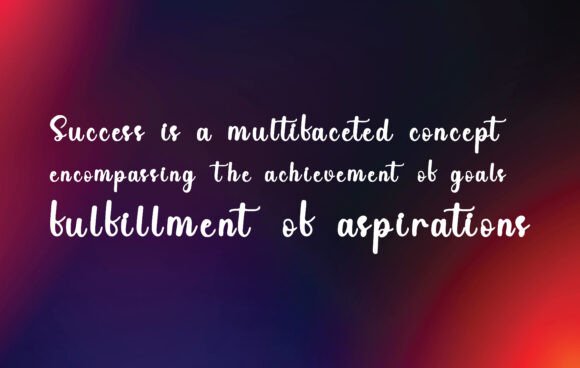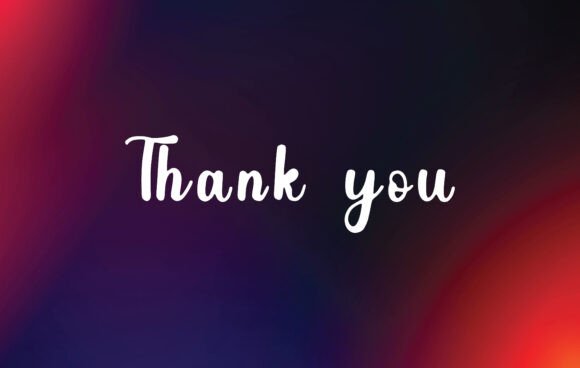
Introducing Ardesia Font: Elevate Your Creative Projects with Elegance
Are you on the lookout for a font that can add a touch of sophistication and charm to your creative projects? Look no further than Ardesia Font, a lovely and beautiful handwritten font designed to take your ideas to new heights. With its unique and elegant style, Ardesia is the perfect choice for designers, crafters, and anyone looking to create eye-catching logos, branding, and quotes that leave a lasting impression.
The Beauty of Ardesia Font
Ardesia Font boasts a distinctive handwritten style that exudes warmth and personality. Its beautiful, flowing lines and curves make it an ideal choice for creating visually appealing designs that capture the essence of your brand or message. Whether you’re working on a logo, brochure, or social media graphics, Ardesia Font is sure to add a touch of elegance and sophistication.
Why Choose Ardesia Font?
So, what makes Ardesia Font stand out from the rest? Here are just a few reasons why designers and crafters love working with this beautiful font:
- Unique and Versatile: Ardesia Font is perfect for a wide range of creative projects, from logos and branding to quotes and social media graphics.
- Elegant and Sophisticated: With its beautiful, flowing lines and curves, Ardesia Font adds a touch of elegance and sophistication to any design.
- Easy to Read: Despite its elegant style, Ardesia Font is easy to read and understand, making it perfect for body text and captions.
- Highly Customizable: Ardesia Font can be easily customized to fit your brand’s unique style and personality.
Using Ardesia Font for Logos and Branding
Ardesia Font is an excellent choice for creating logos and branding materials that make a lasting impression. Its unique and elegant style makes it perfect for:
- Logos: Create a stunning logo that showcases your brand’s personality and style.
- Business Cards: Add a touch of sophistication to your business cards and make a great first impression.
- Brochures and Flyers: Use Ardesia Font to create visually appealing brochures and flyers that capture the essence of your brand.
Tips for Using Ardesia Font
To get the most out of Ardesia Font, here are a few tips to keep in mind:
- Experiment with Colors: Try pairing Ardesia Font with different colors to create a unique and eye-catching design.
- Play with Sizes: Experiment with different font sizes to create visual interest and hierarchy.
- Add Texture and Patterns: Add texture and patterns to your design to give it an extra layer of depth and interest.
Ardesia Font is a beautiful and elegant handwritten font that’s perfect for designers, crafters, and anyone looking to create stunning creative projects. With its unique and versatile style, Ardesia Font is sure to take your ideas to new heights. Whether you’re working on a logo, branding, or quotes, Ardesia Font is the perfect choice for adding a touch of sophistication and charm.
Get Creative with Ardesia Font